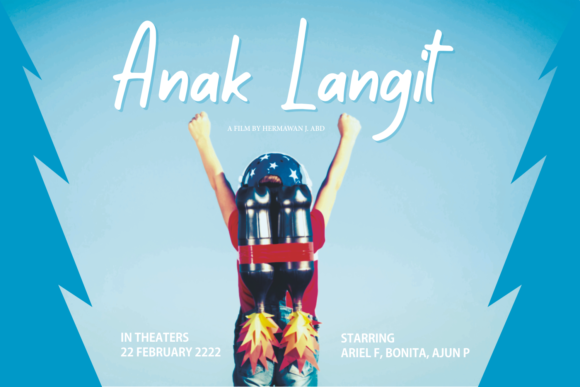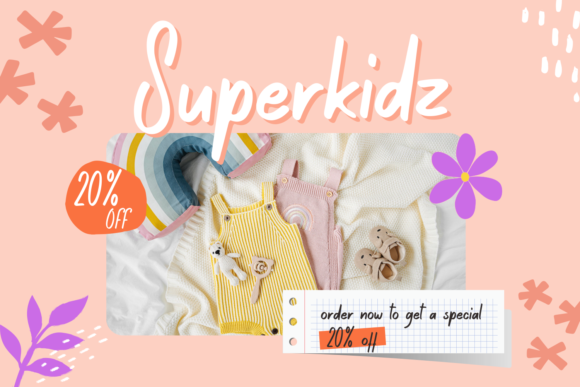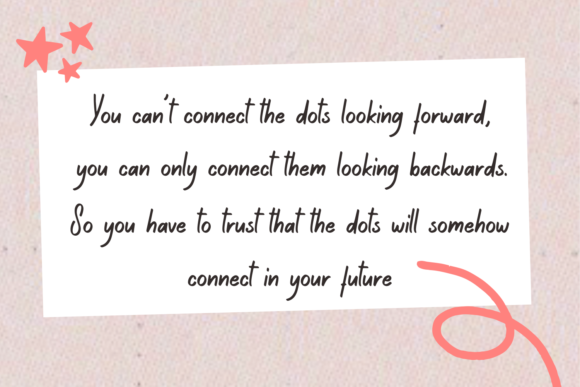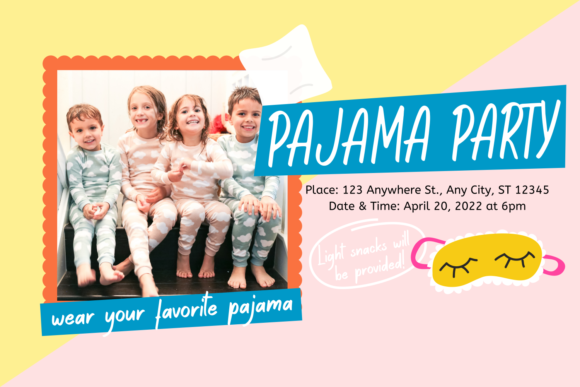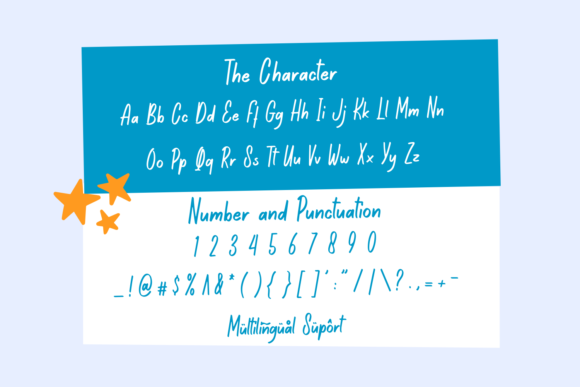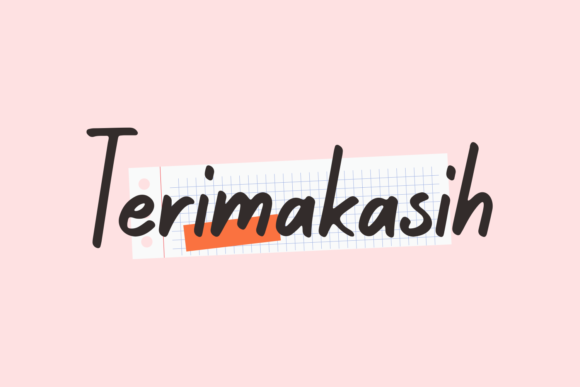
Introduction to Kate Blues Font
Have you ever stared at a blank page, feeling stuck and uninspired? I’m sure you have. That’s exactly where I was when I first stumbled upon the Kate Blues Font. It was love at first sight – the elegant curves, the sophisticated feel, and the promise of making my design projects shine. Little did I know that this font would become my go-to resource for creating stunning visual content.
As a designer, I know how crucial it is to have access to high-quality design resources that can elevate our creative projects. The Kate Blues Font is a game-changer, offering a unique blend of style and sophistication that’s perfect for logos, headings, and even social media branding. Whether you’re working on a free download or a paid project, this font is sure to impress your audience.
Key Features of Kate Blues Font
- High-quality design resource with a unique, hand-drawn style perfect for creative projects.
- Features a bold, expressive script font ideal for adding a touch of elegance to your design.
Honest Review: Kate Blues Font
As a designer, I’ve come across my fair share of fonts, but the Kate Blues Font has caught my eye. I decided to give it a try, and here’s my honest review.
What works well: ✨ The Kate Blues Font is a high-quality font with a unique, creative vibe that’s perfect for any project. The transparent background makes it easy to layer with other design elements. It’s also free to download, which is always a plus. The font is versatile and can be used for a wide range of creative projects, from posters to social media graphics.
Some limitations: ⚠️ While the Kate Blues Font is a great addition to any design resource, it may not be suitable for all projects. The font is quite bold and eye-catching, so it may not be the best choice for more subtle or professional designs. Additionally, the font may not be compatible with all devices or operating systems.
Overall, I’m impressed with the Kate Blues Font. It’s a great resource for designers who want to add some creativity and flair to their projects. While it may have some limitations, it’s definitely worth checking out if you’re looking for a unique and high-quality font.
- High-quality font with a unique, creative vibe
- Perfect for creative projects, such as posters and social media graphics
Tips for Getting the Most Out of Kate Blues Font
To get the most out of Kate Blues Font, experiment with different font sizes, colors, and styles to create a unique look. Use the font in combination with other design elements to add depth and interest to your design.
Kate Blues Font is ideal for creative projects such as branding, marketing materials, and social media graphics. It’s also perfect for adding a personal touch to presentations, documents, and websites.
Is Kate Blues Font suitable for high-quality design projects?
Kate Blues Font is designed to be a high-quality font, making it perfect for use in professional design projects. With its clean lines, elegant curves, and unique style, Kate Blues Font is sure to elevate your designs to the next level.